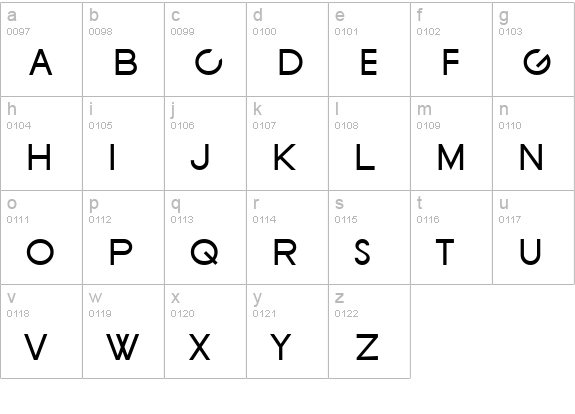
SF New Republic SC Font Details
Introducing SF New Republic SC, a stunning sans-serif font that effortlessly combines modernity with elegance. This font is the perfect choice for anyone seeking a sleek and sophisticated look for their designs. SF New Republic SC boasts clean lines and balanced proportions, making it highly versatile and suitable for a wide range of creative projects. Whether you're designing a logo, creating eye-catching headlines, or crafting captivating posters, this font will add a touch of professionalism and style to your work. One of the greatest features of SF New Republic SC is its accessibility. It is freely available to download at FontsMarket.com, allowing designers of all levels to enjoy its exceptional quality without any cost. This font is a true gem for those who value both aesthetics and practicality. The characters of SF New Republic SC are meticulously designed, ensuring optimal legibility in any size or format. Its refined curves and subtle details contribute to its overall sophistication, making it a standout choice in the world of typography. SF New Republic SC is a font that effortlessly captures attention and holds it. Its timeless appeal and versatility make it suitable for a wide range of design projects, from branding to editorial layouts. With its sleek and modern aesthetic, this font is sure to elevate your designs to new heights. Whether you're a professional designer or a passionate hobbyist, SF New Republic SC is a must-have font in your collection. Its free availability on FontsMarket.com means that you can enhance your designs without breaking the bank. Embrace the elegance and style of SF New Republic SC and let your creativity soar.